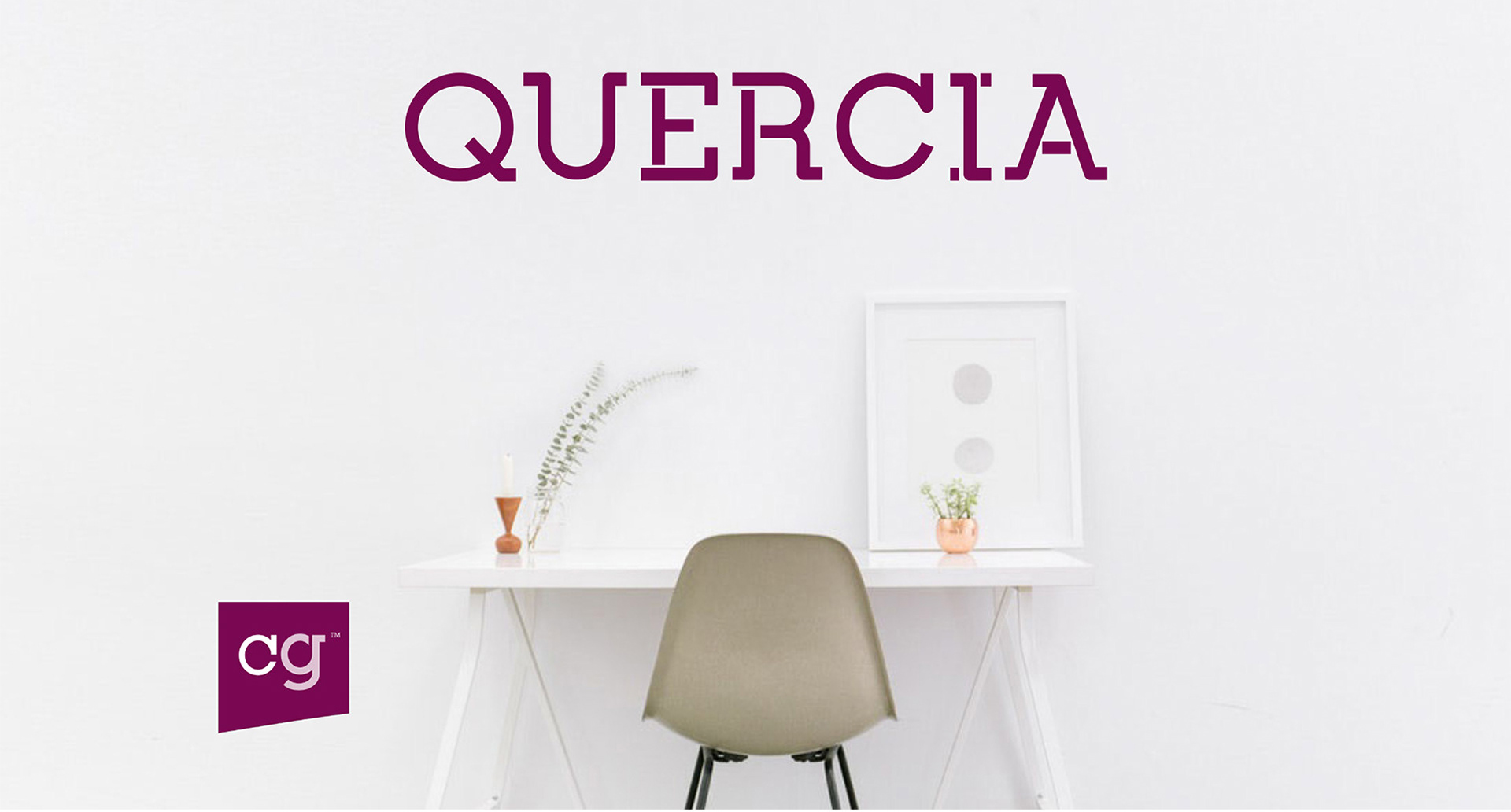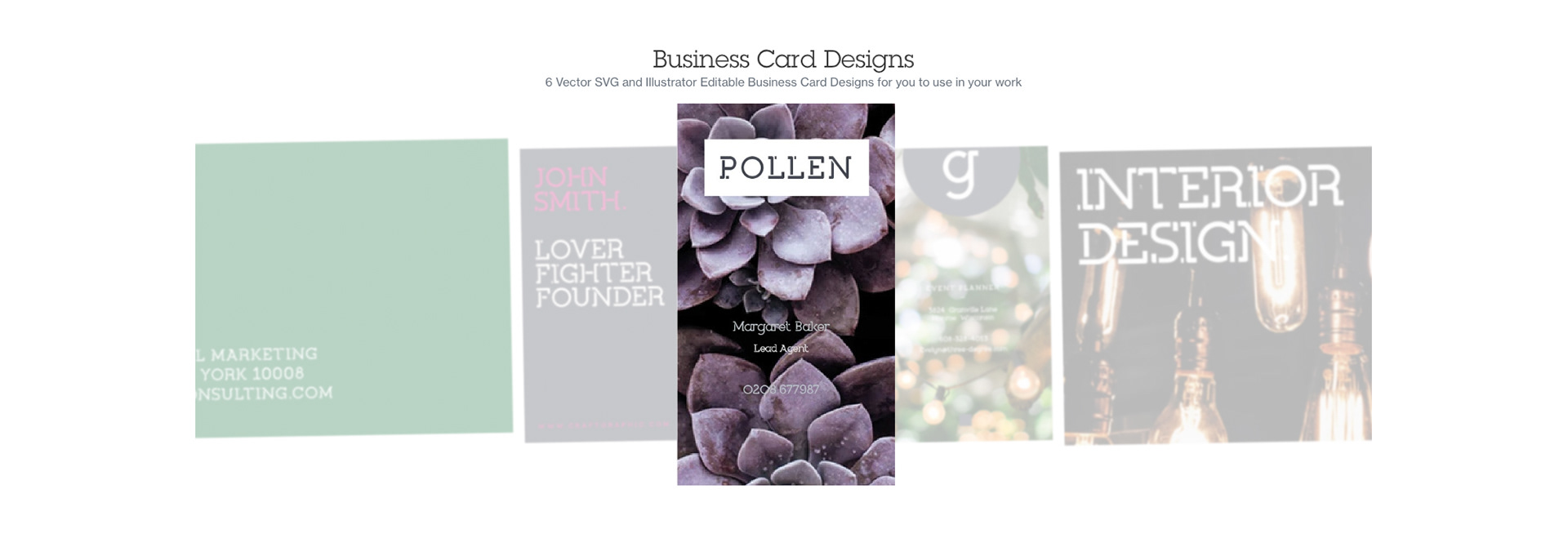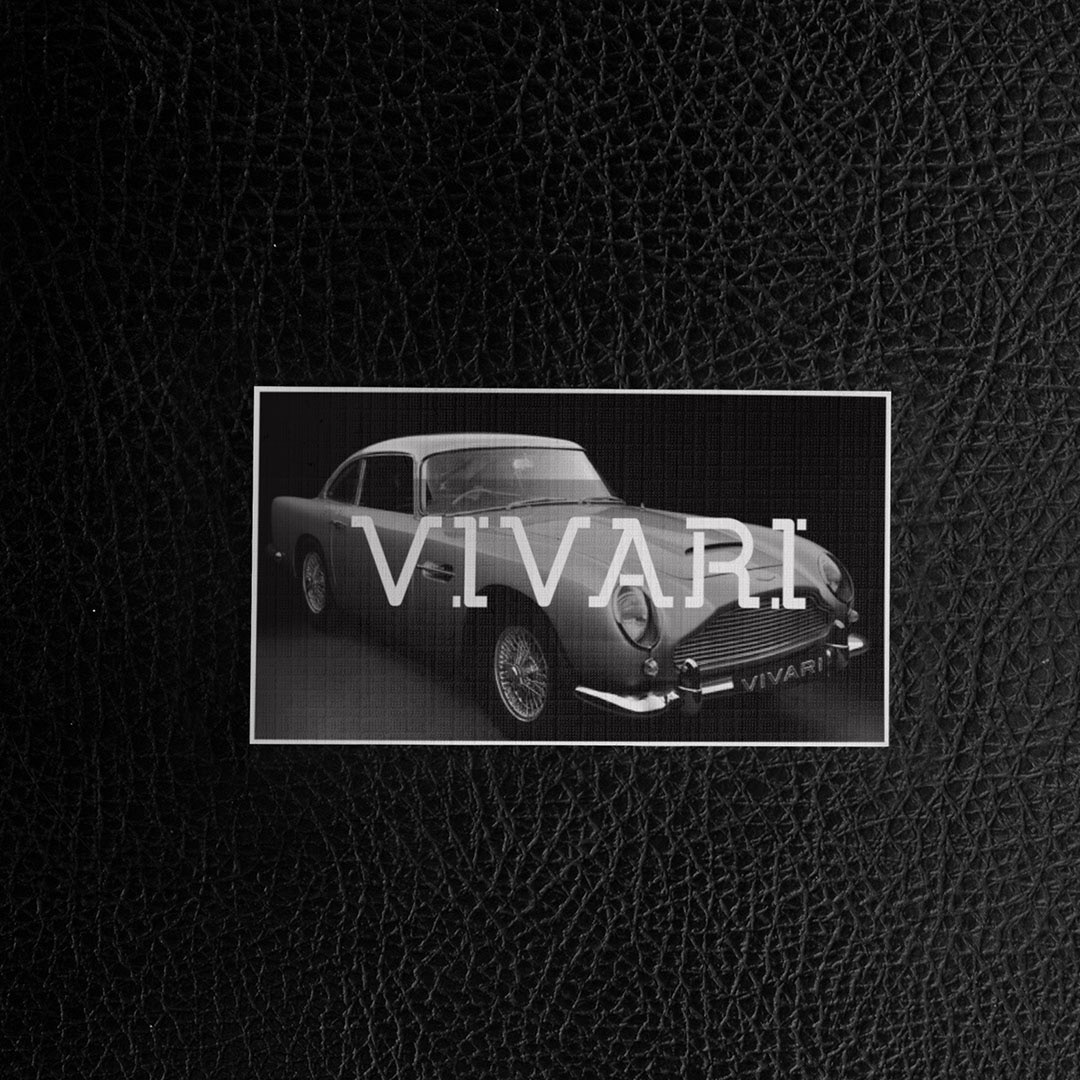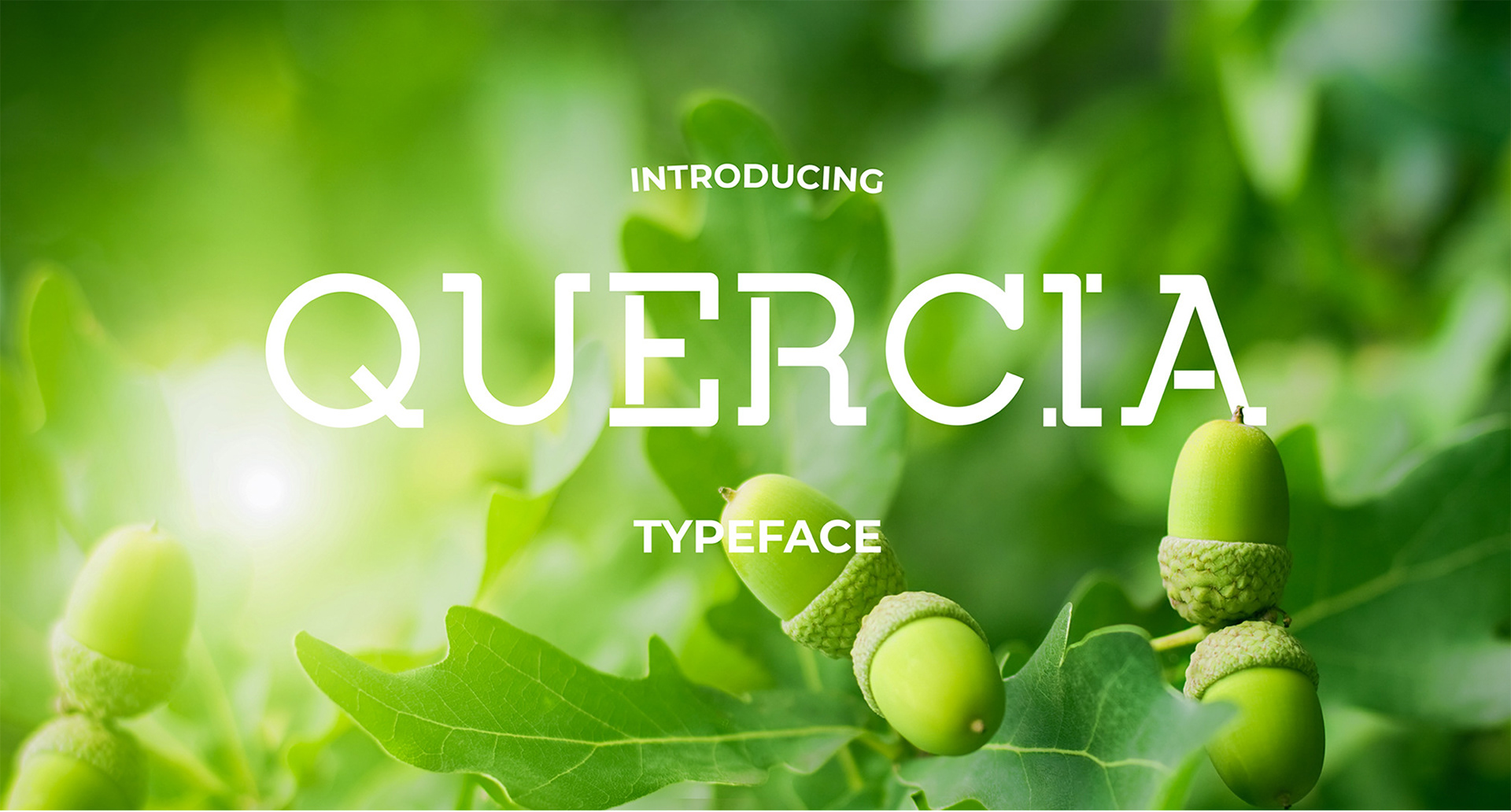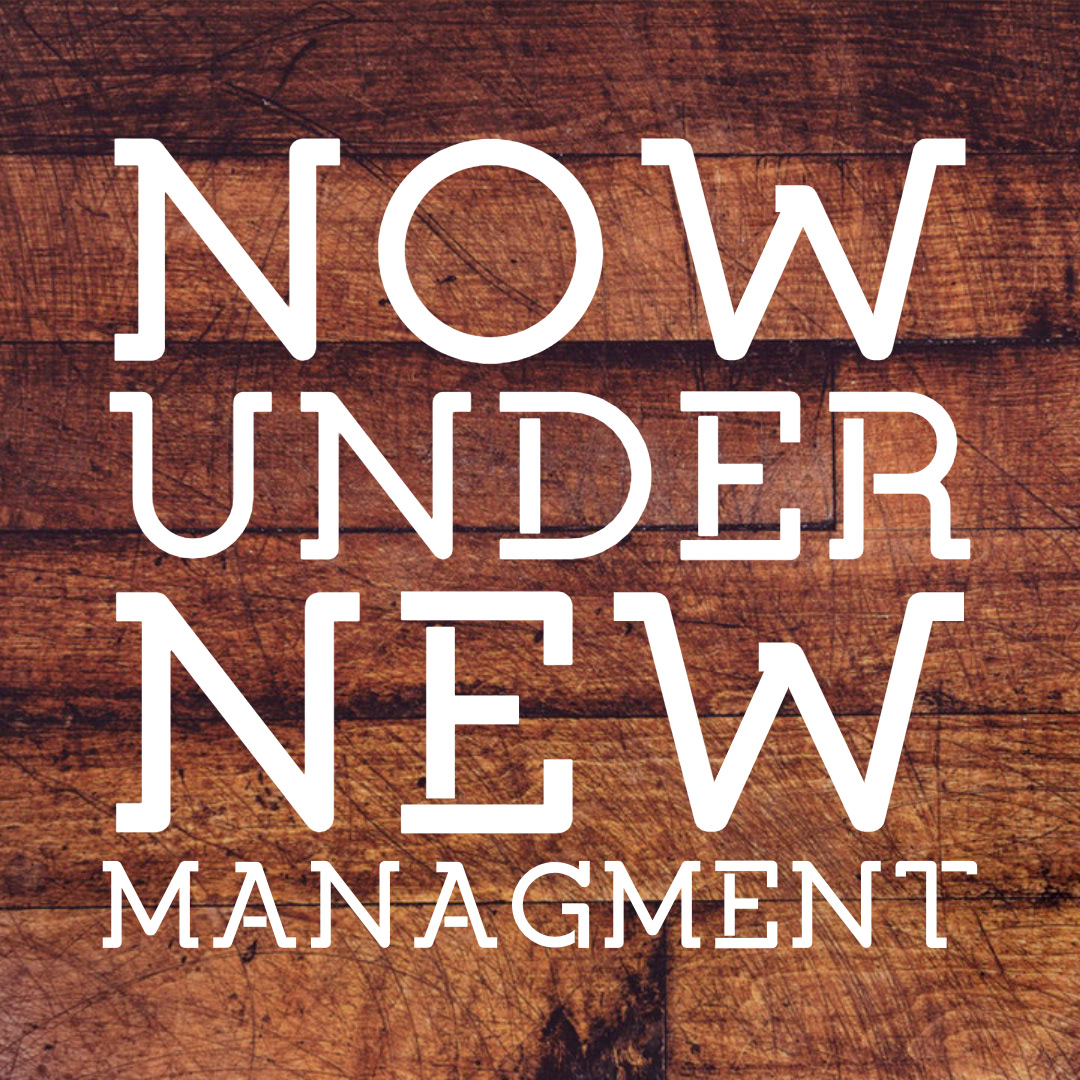
Quercia is a geometric slab serif built to stand out. It is stylish and modern looking and works well for company branding and identities. Quercia is vibrant and robust and features extensive language support. Excellent for headlines, captions, Logos, Identities and at large sizes, its industrial stencil effect attracts attention, while its curved and broken serif terminals make it approachable. Ideally suited for advertising and packaging, editorial and publishing, logo, branding and creative industries, poster and billboards, small text, wayfinding and signage as well as web and screen design. Also included in this pack is a range of editable designed templates.